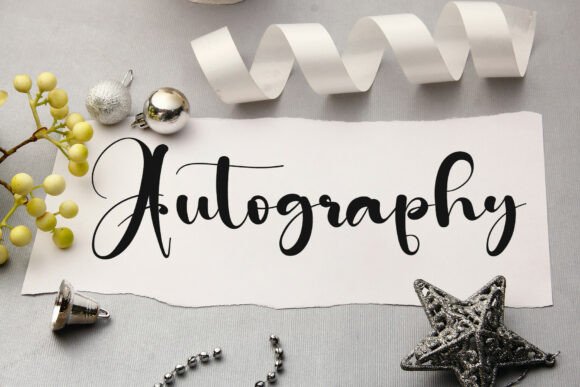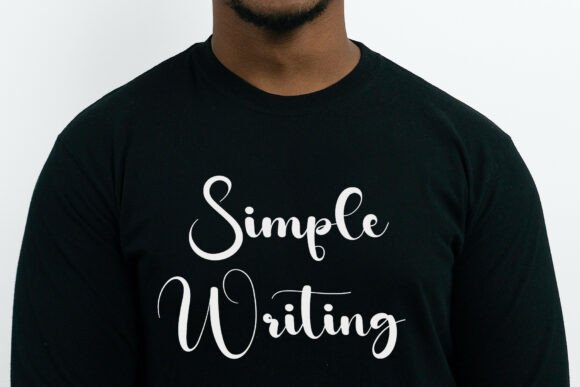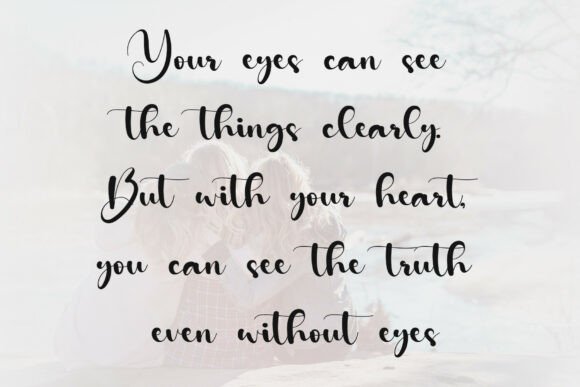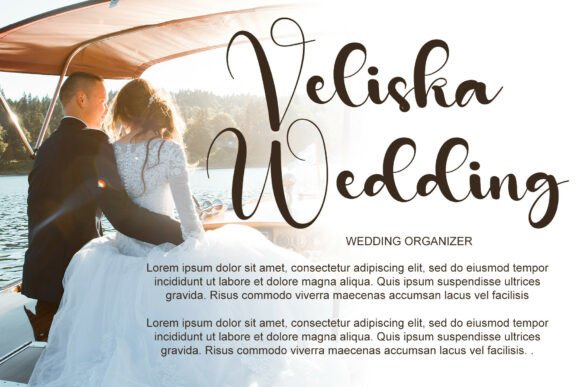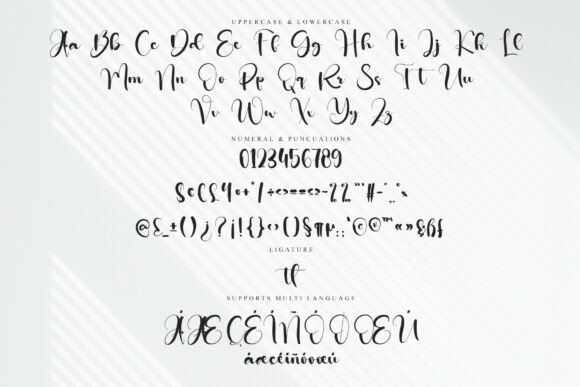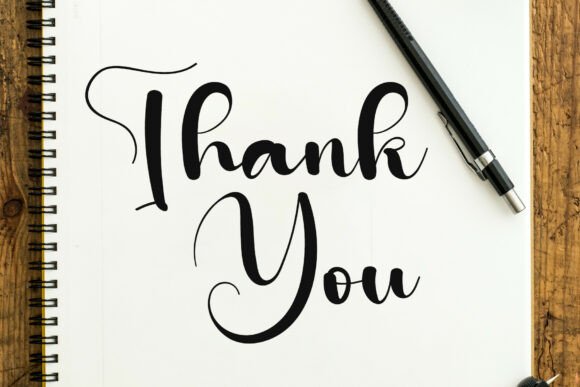
Introduction to Public Holiday Font
Public Holiday is a stylish and dainty script font.
It is suitable for any projects such as : logos, branding projects, label, photography, watermark, special events, and all your other lovely projects that need a beautiful script taste This font is PUA encoded which means you can access all of the glyphs and swashes with ease.
Key Features of Public Holiday Font